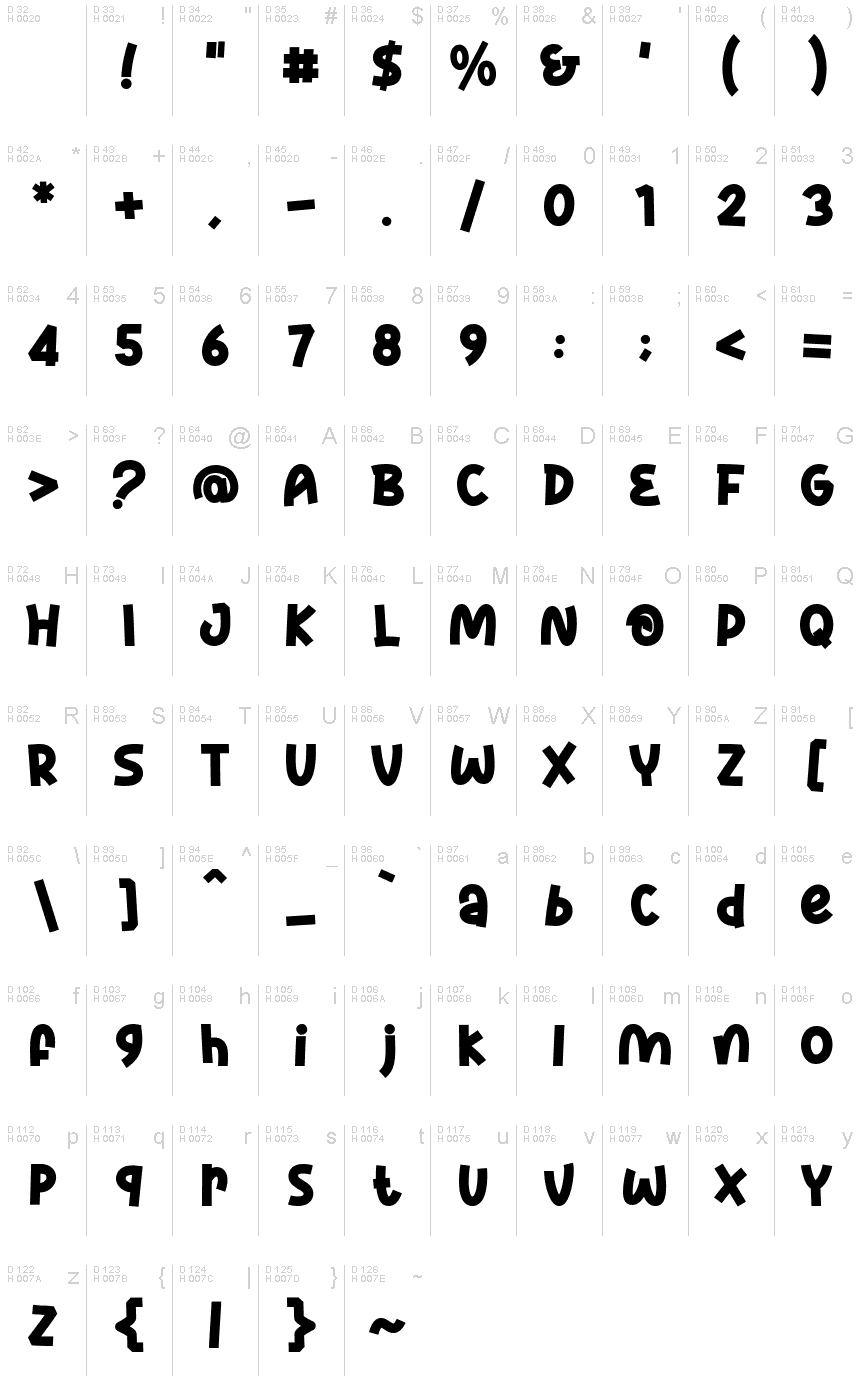
Rhuma Sinera, a delightful creation by Mabhal Studio, is a bold display font that exudes an air of playfulness. With its comic style, this font injects a dose of whimsy into any project it graces. Perfect for children's book covers and illustrations, Rhuma Sinera adds a vibrant touch to packaging designs and logos. Its bold weight ensures legibility while making headlines pop on websites and posters alike. Let your imagination run wild as Rhuma Sinera takes center stage in your creative endeavors, bringing charm and liveliness to every design.